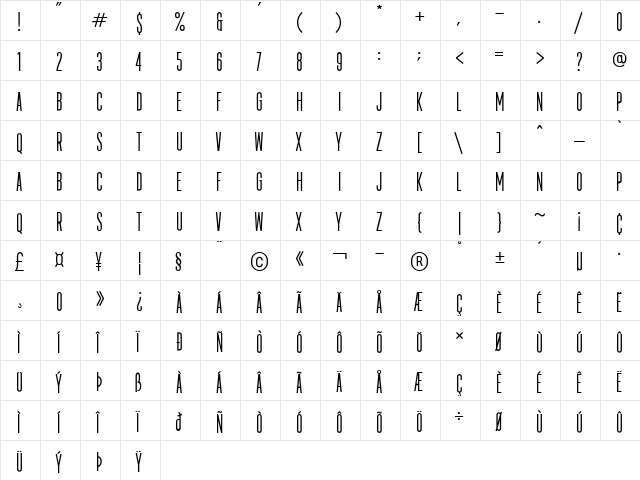
Imperfecto Regular Regular
Imperfecto Regular offers clean, dependable letterforms without strong stylistic allegiance, making it a practical choice for designers who need flexibility.